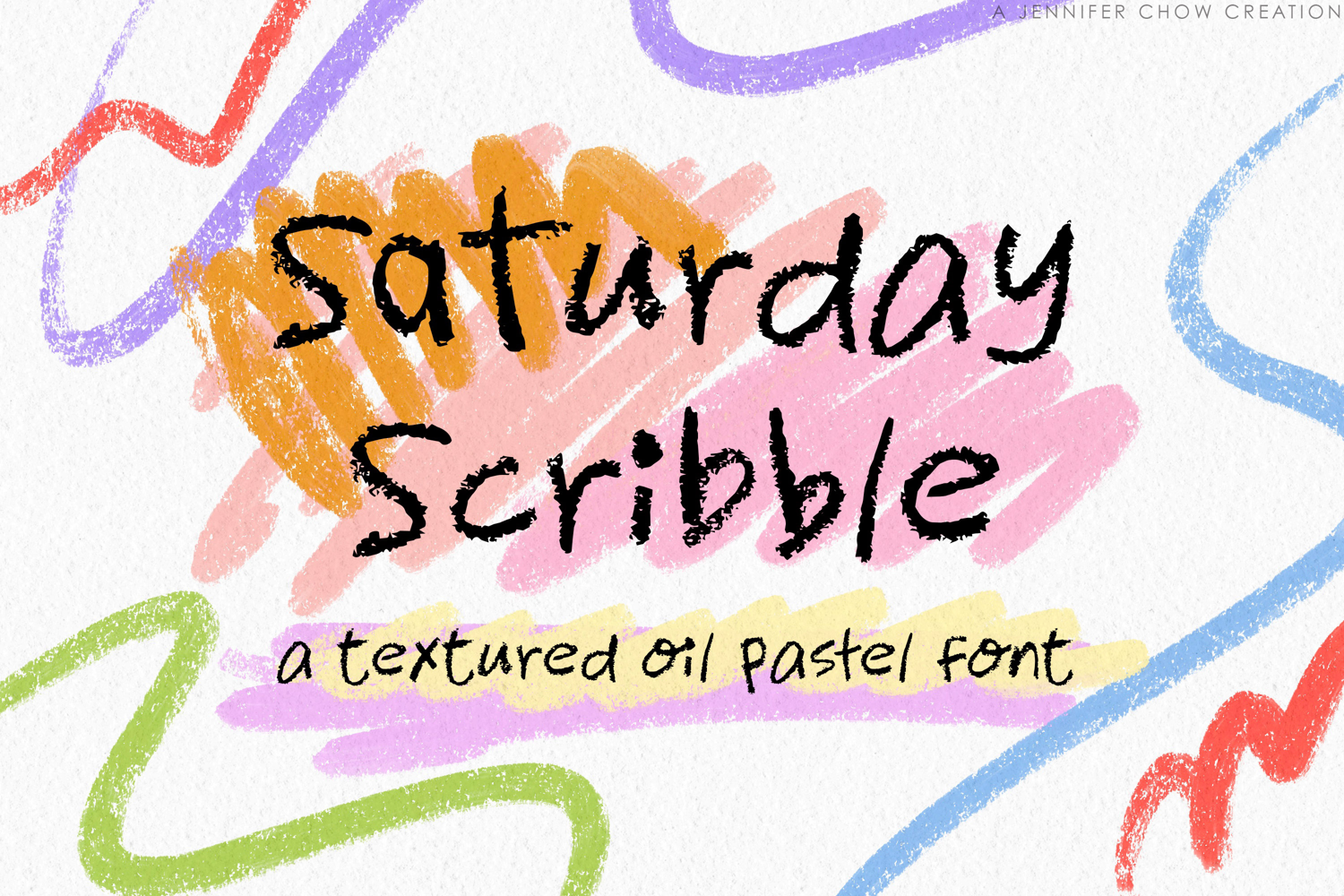
Saturday Scribble | Textured Oil Pastel Display Font
SaturdayScribble
Saturday Scribble captures the carefree, nostalgic energy of a weekend art session. This font features a heavy, authentic "wax" texture that perfectly replicates the look of oil pastels on textured paper. It’s unpolished, expressive, and brimming with personality—ideal for projects that need to feel human and tactile rather than digital and cold.
Great for:
Children’s Book Illustrations: Add a playful, hand-drawn feel to story titles.
Social Media Quotes: Create eye-catching, high-texture graphics for Instagram.
Eco-Friendly Packaging: Perfect for organic snacks, handmade soaps, or florists.
Classroom Decor: Ideal for teacher resources, bulletin boards, and posters.
Apparel Design: Great for "skater" style or indie-brand streetwear graphics.